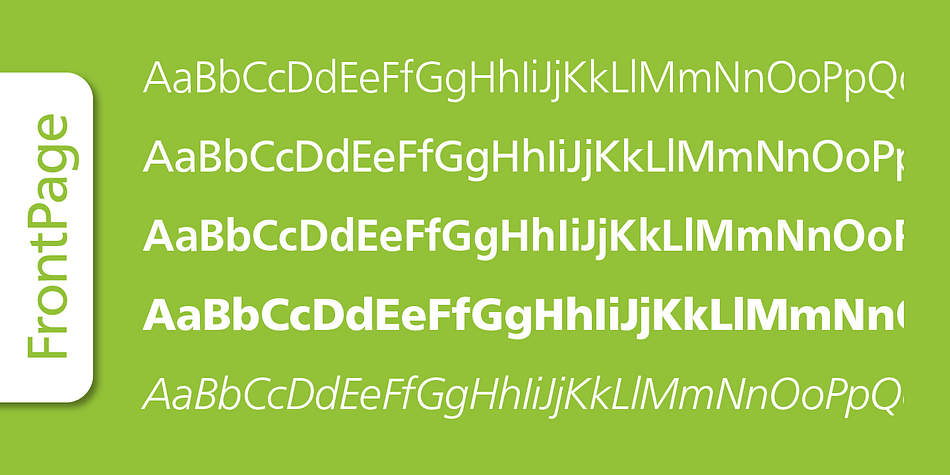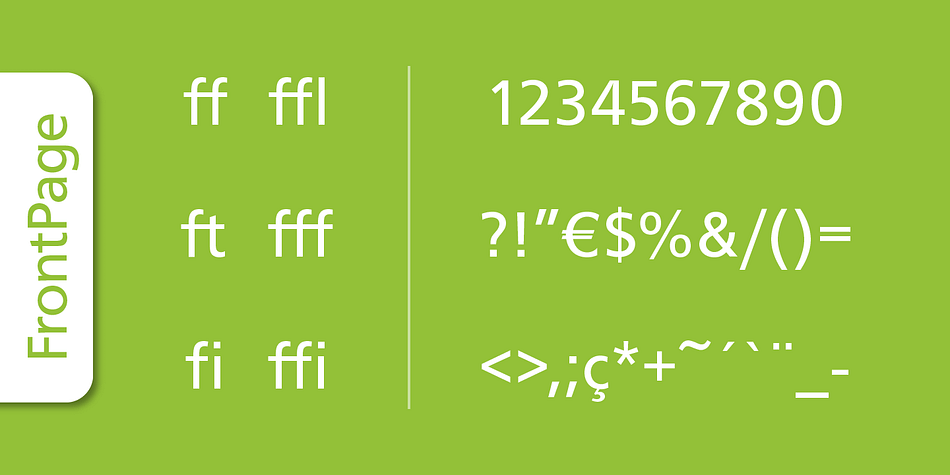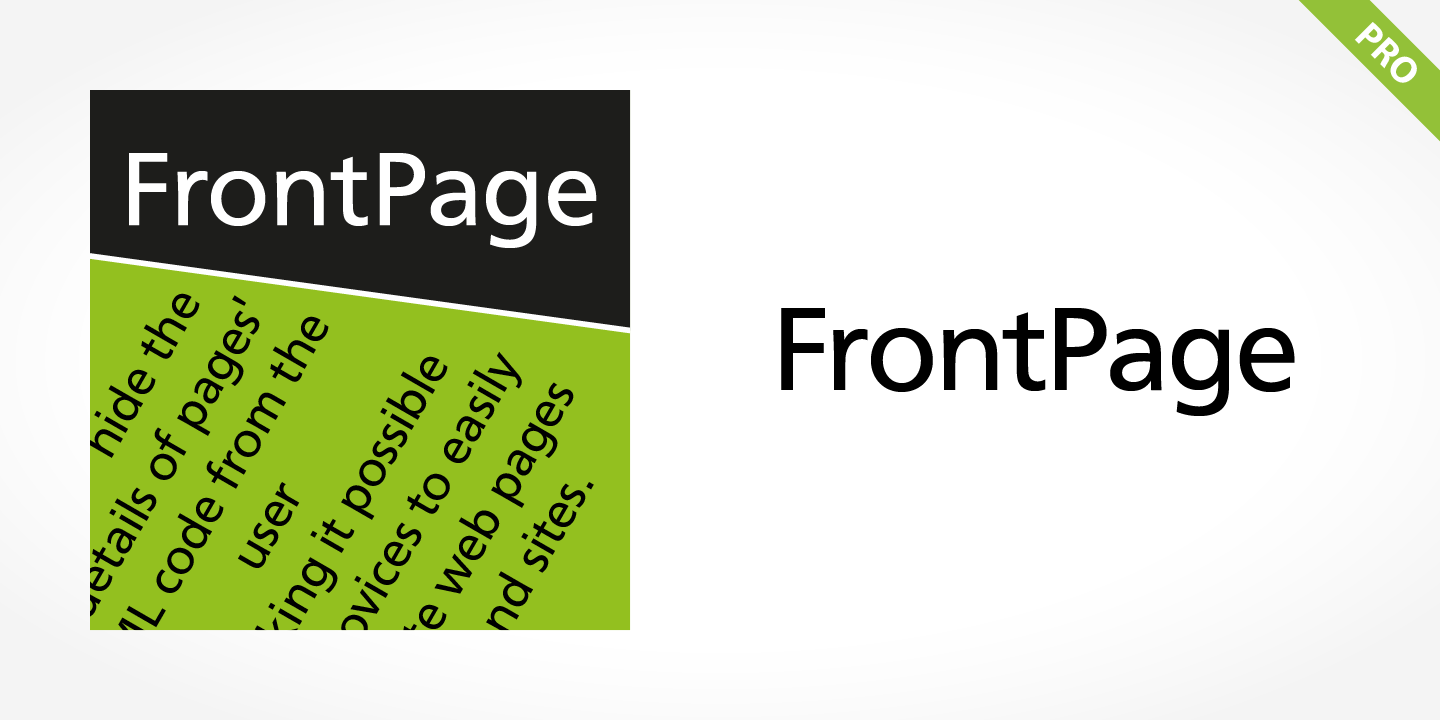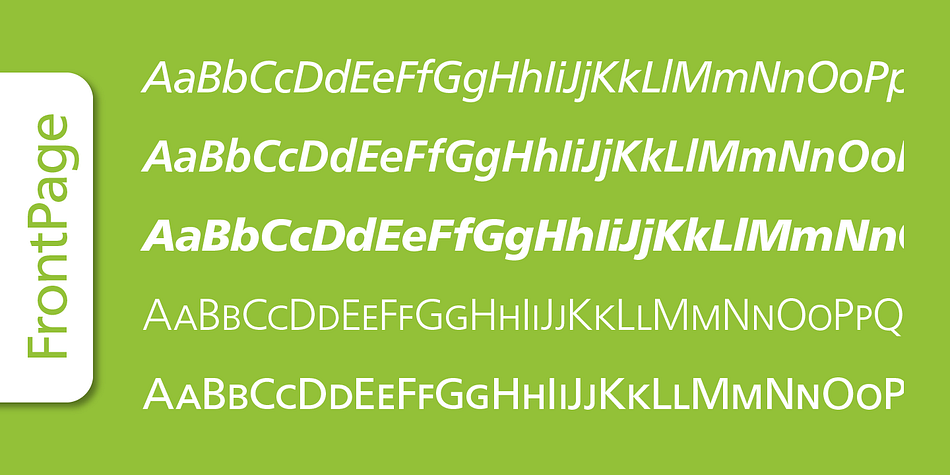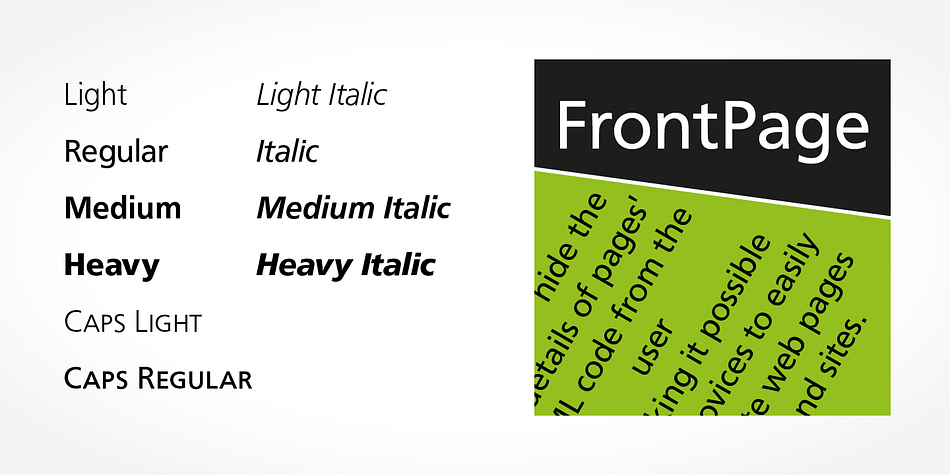
Frontpage Pro
Frontpage Pro is a sans serif font family. This typeface has ten styles and was published by SoftMaker.
Frontpage Pro is neither strictly geometric nor humanistic in construction; its forms are designed so that each individual character is quickly and easily recognized. Such distinctness makes it good for signage and display work. Although it was originally intended for the large scale of an airport, the full family has a warmth and subtlety that have, in recent years, made it popular for the smaller scale of body text in magazines and booklets.